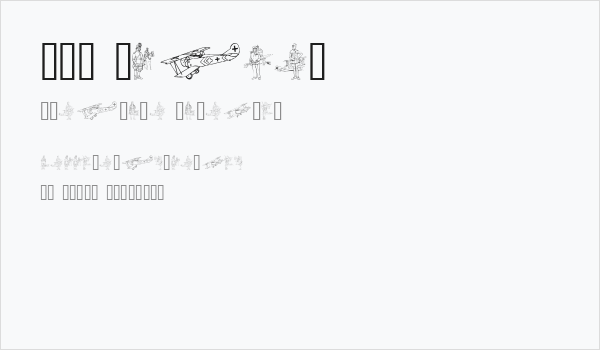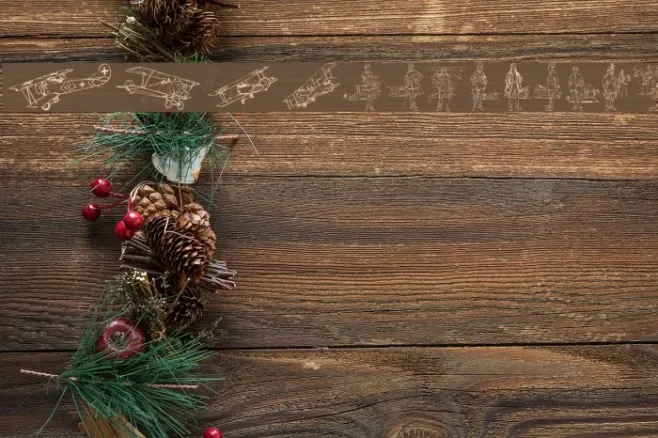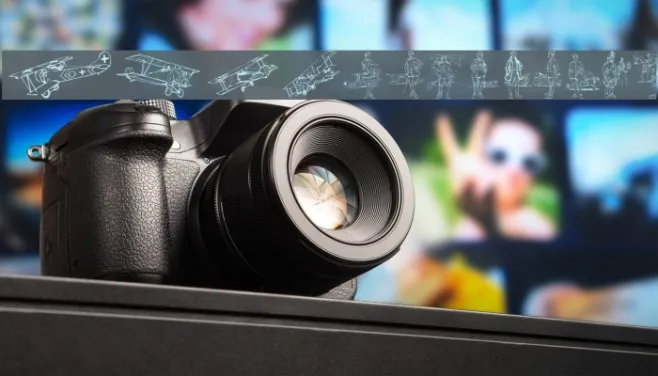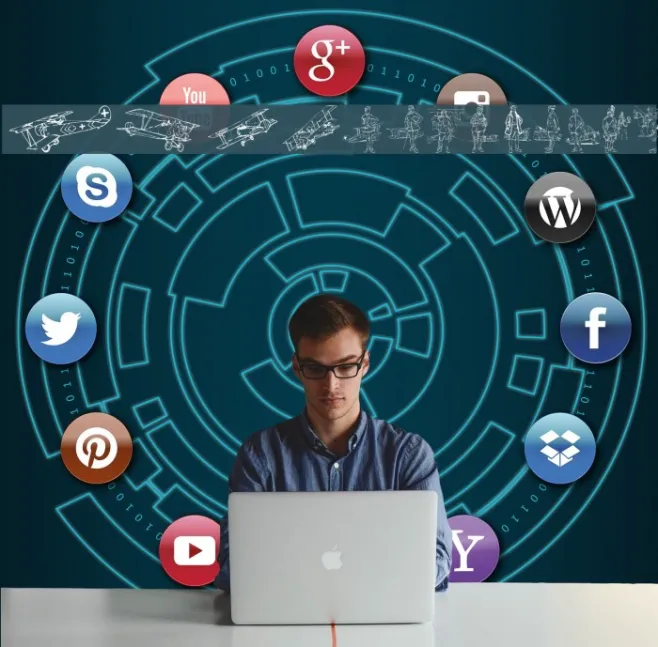
WW1 Planes Font
WW1 Planes Description
This is not a valid font. The image contains illustrations of World War I planes and soldiers, which are not suitable for typographic use. The characters are represented by detailed sketches rather than traditional letterforms, making it inappropriate for standard text applications.
| Overall Style | Historical, Illustrative |
| Use Case | Illustrations, Educational materials |
| Proposed Projects | This set of illustrations could be used for educational materials about World War I, historical presentations, or themed graphic design projects. |